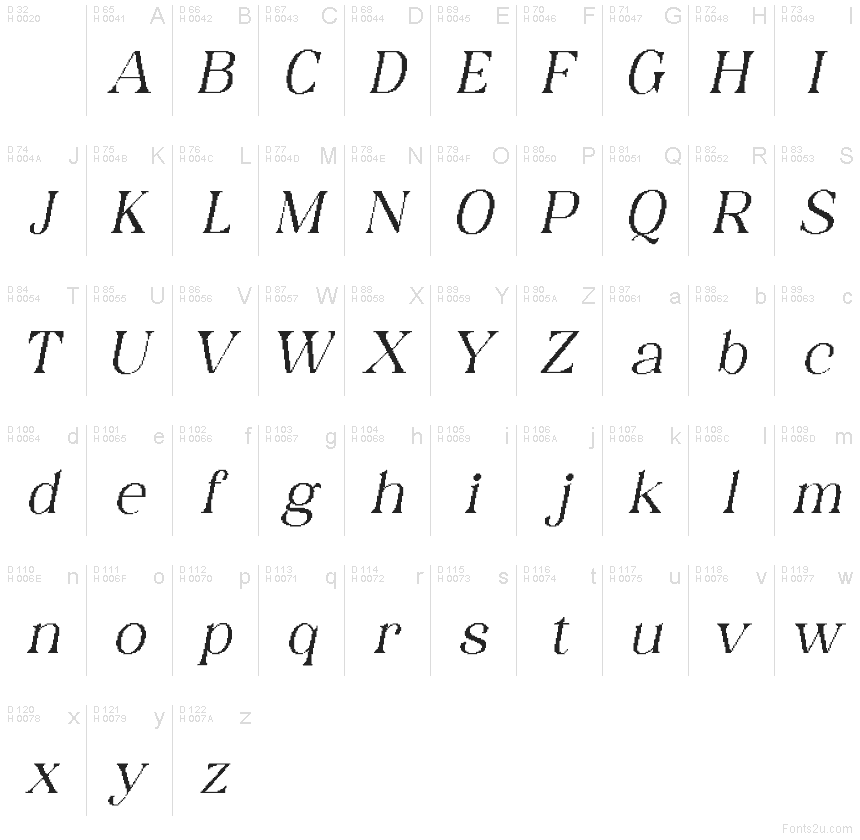
HarnoldPixel-Regular Demo
Harnold Pixel font by Craft Supply Co. is a free pixelated serif font. Built within the Harnold family, it swaps smooth curves for crisp, stair-stepped contours and tiny blocky serifs that read like chiseled highlights. The result feels retro-console meets editorial—grainy, high-contrast, and surprisingly graceful—bringing bookish structure to an 8‑bit grid without losing warmth.
Using Harnold Pixel, headlines snap with rhythmic texture and tidy spacing that holds up at small sizes. It shines on indie game menus, retro event flyers, album covers, tech zines, badges, and stream overlays. For an easy pairing, set body copy in a clean pixel sans and keep sizes on even pixel increments (12, 16, 24) to preserve the bitmap bite in this free font.
Harnold Pixel Demo